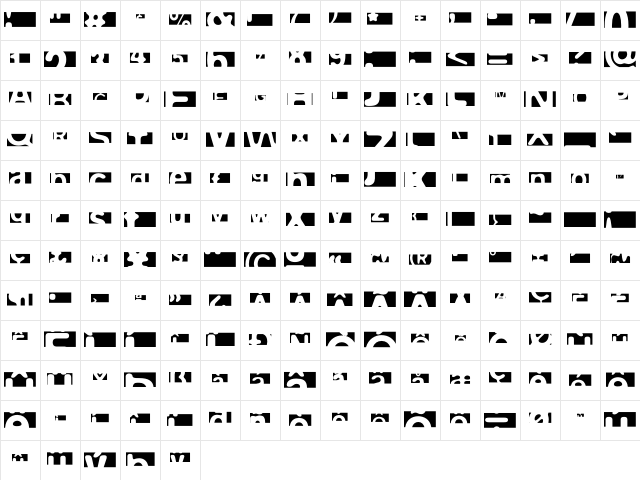
FPeep Confused Free Font
FPeep Confused
Style: Confused
Design Context for FPeep
FPeep is a composed and adaptable typeface that performs quietly and consistently across a wide range of design contexts.